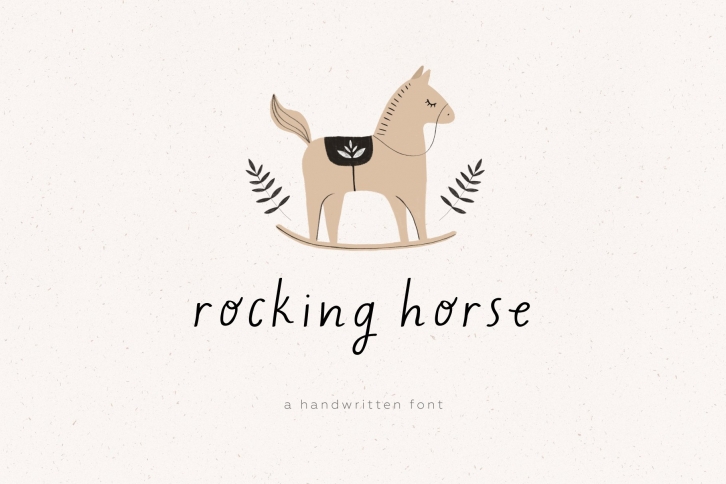
Rocking horse is a beautiful font that was designed by Angelina Kovel. It's a great choice for designers and creatives who need such a font. It was released on April 27, 2022 and the file size is 1.56 MB. Rocking horse may give a more youthful, expressive and casual look to your project. It is a very beautiful, refined, elegant, and high-quality font.